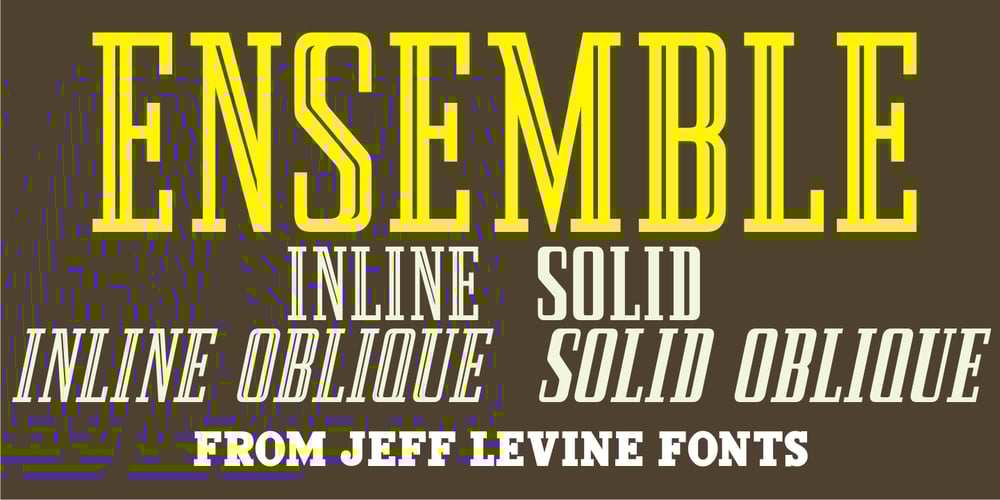
Ensemble Inline JNL
Ensemble Inline JNL font
Ensemble Inline JNL Font Family was designed by Jeff Levine and published by Jeff Levine. Ensemble Inline JNL contains 4 styles and family package options. A 1940s-era edition of the sheet music for the Marine Corps Hymn offered up the hand lettering which comprises Ensemble Inline JNL. Bold, condensed and attention-getting, this titling font commands attention. Available in Inline, Solid, Inline Oblique and Solid Oblique versions.